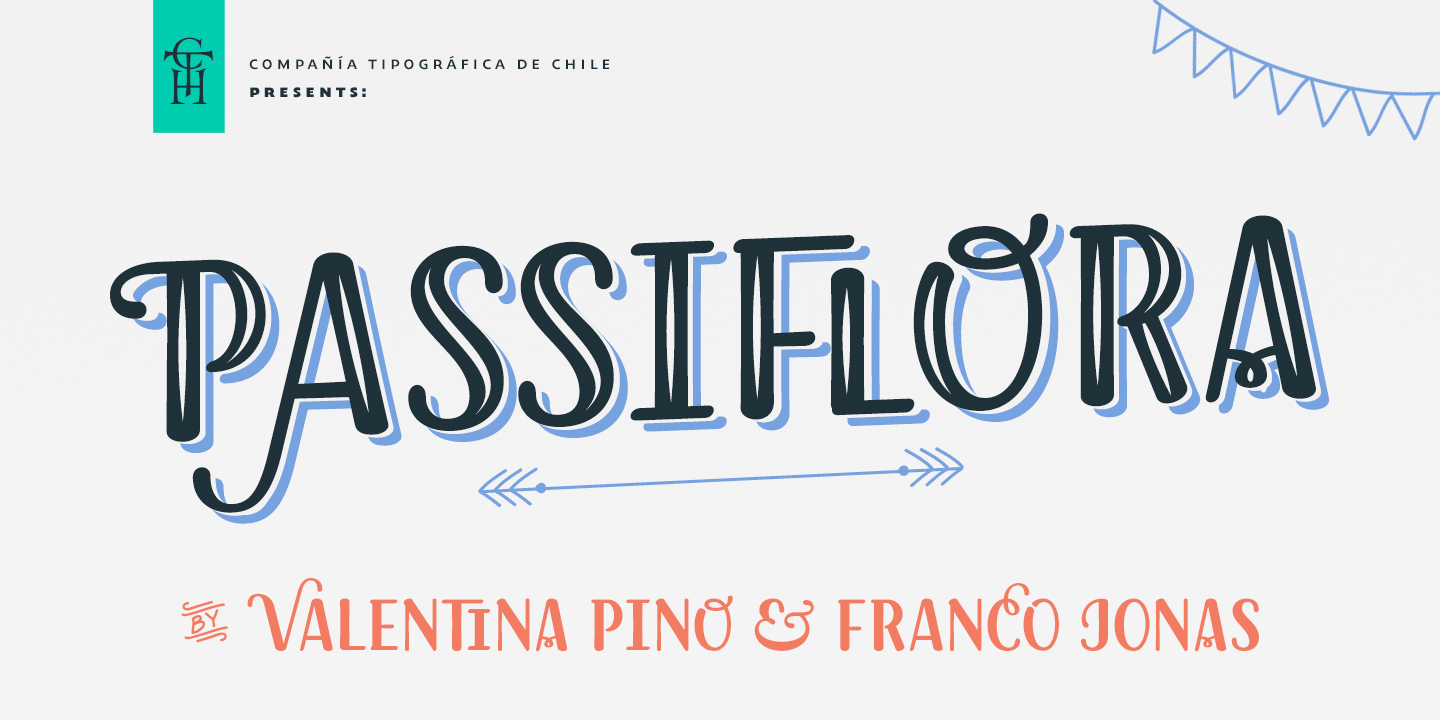
Passiflora Font is ideal for botanical garden signage, organic skincare branding, herbal medicine packaging, nature conservation materials, floral wedding invitations, spa and wellness centers, tropical resort promotions, and eco-friendly product labels. This elegant typeface brings natural beauty and botanical sophistication to any design project celebrating flora, wellness, and environmental harmony.
What makes Passiflora Font exciting is its graceful embodiment of the exotic passion flower's intricate beauty combined with contemporary elegance that captures the essence of tropical botanical gardens and natural wellness. The flowing letterforms feature organic curves and delicate details that create a naturally sophisticated appearance. Each character blooms with botanical inspiration, making it perfect for brands that celebrate nature's healing power and the exotic beauty of tropical flora.
The Passiflora Font family typically includes regular and italic weights with complete uppercase and lowercase letters, numbers, punctuation marks, and special characters. Many versions feature additional botanical decorative elements, floral motifs, and nature-inspired symbols that enhance the organic aesthetic and provide creative flexibility for wellness and environmental design applications.
Whether you're developing natural wellness brands or creating botanical exhibition materials, Passiflora Font Free Download offers unlimited potential for nature-inspired projects. This enchanting typography choice transforms ordinary text into blooming visual experiences that resonate with audiences seeking natural beauty and holistic wellness. The font's organic nature ensures exceptional appeal across various botanical applications while maintaining its distinctive floral character that makes every design project feel like a journey through an exotic tropical garden where passion flowers bloom in eternal splendor.